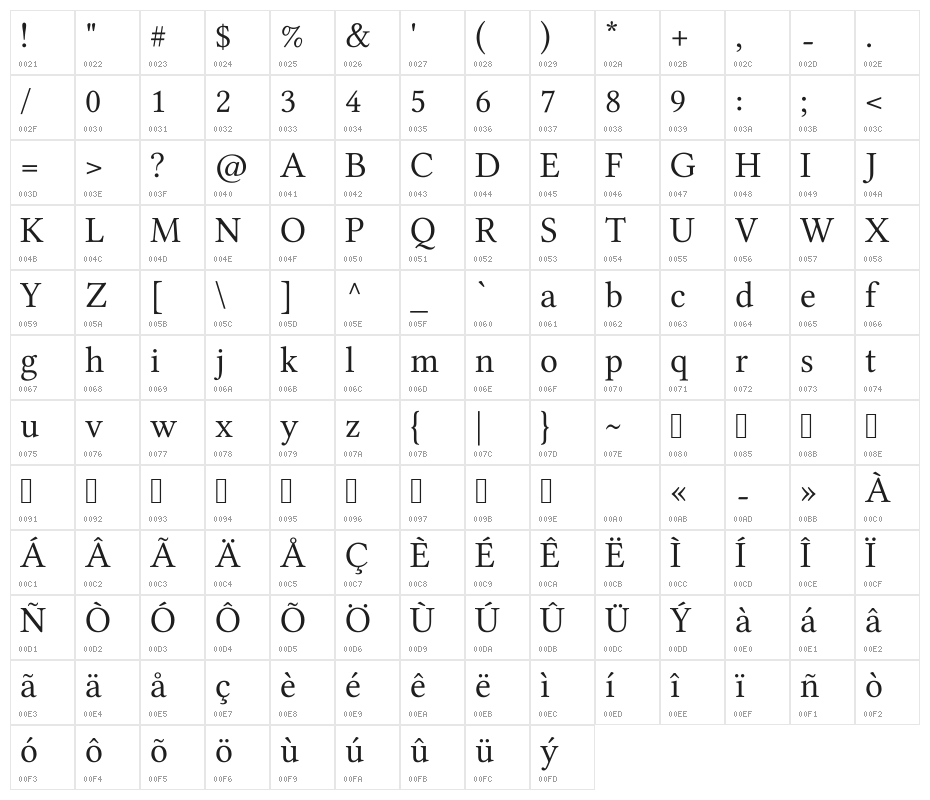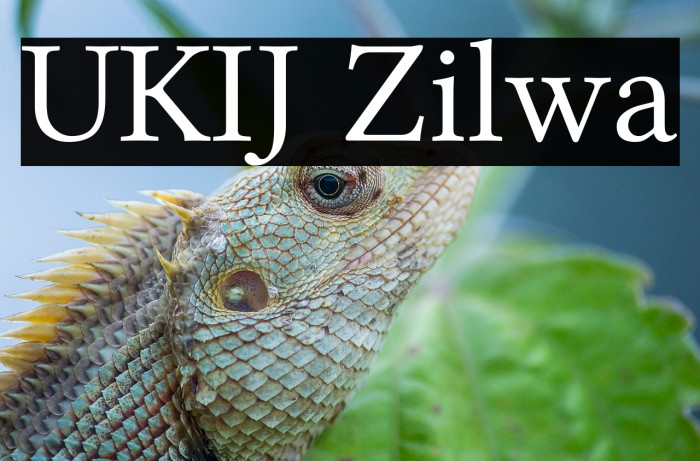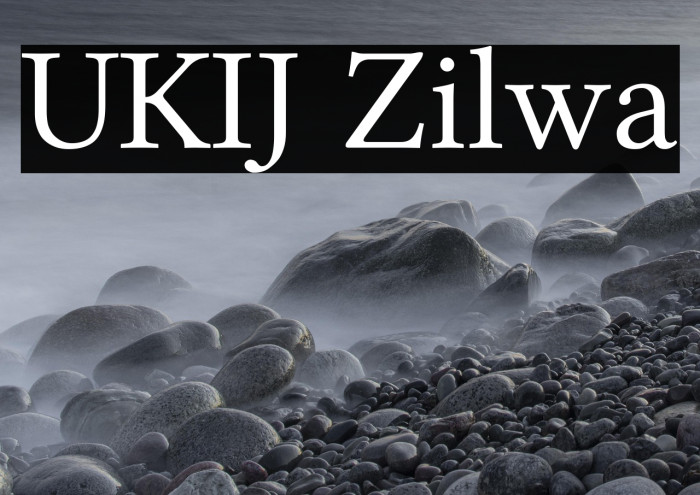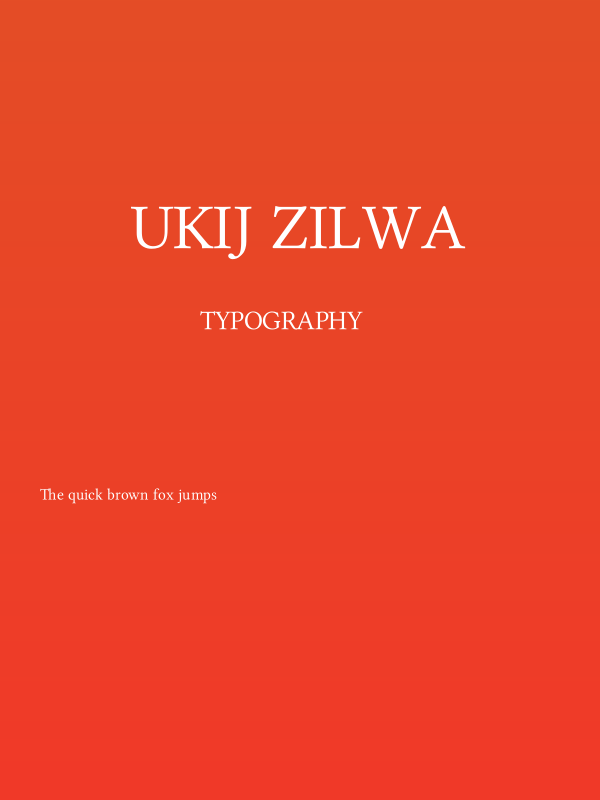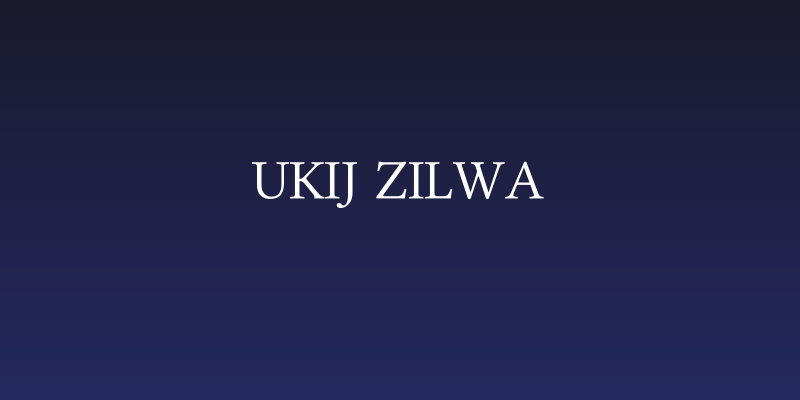
UKIJ Zilwa Font
UKIJ Zilwa Description
This font exhibits a classic serif style with a refined and elegant appearance. The characters are well-proportioned, featuring distinct serifs that add a touch of sophistication. The uppercase letters are bold and commanding, while the lowercase letters maintain a graceful flow. The numerals are clear and easily readable, making them suitable for various applications. Special characters are designed with the same attention to detail, ensuring consistency across the font. The overall design is timeless, making it versatile for both modern and traditional projects.
| Proposed Projects | Ideal for book covers, editorial design, formal invitations, and branding materials. |